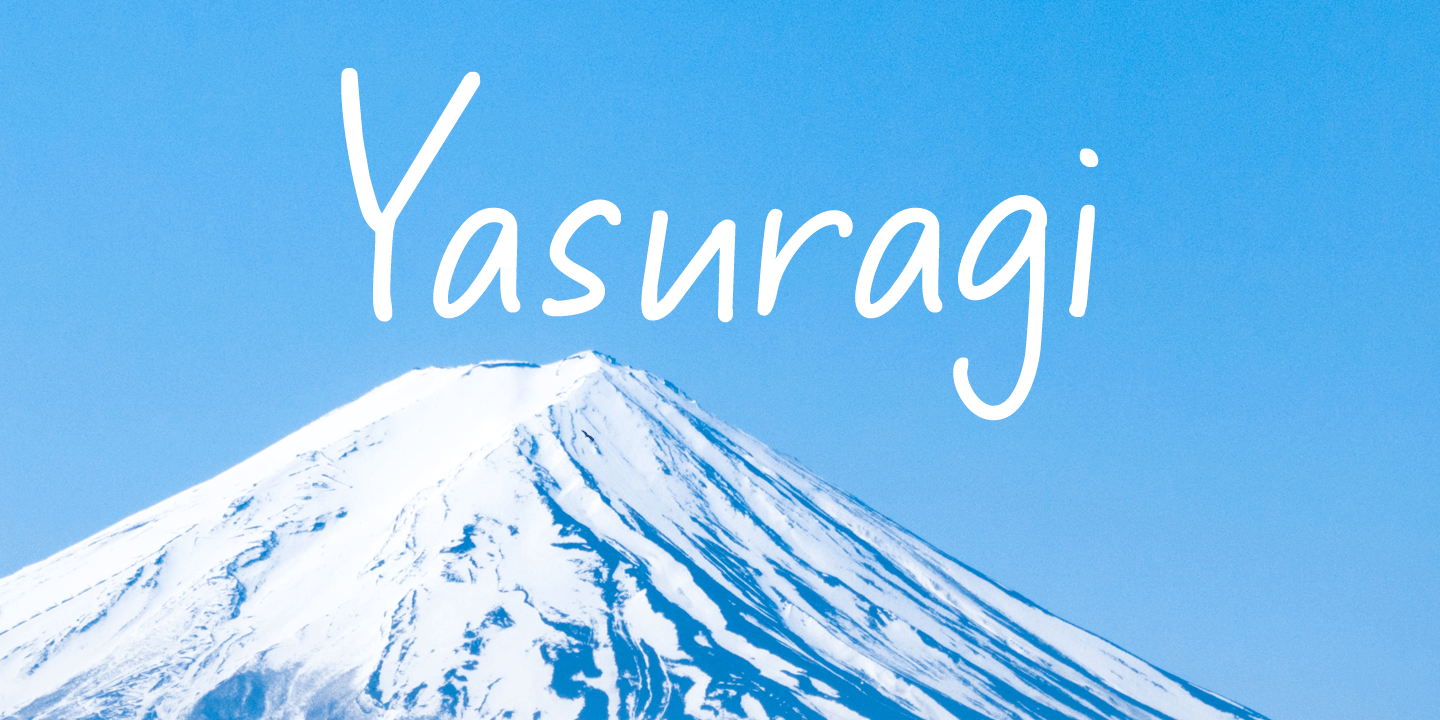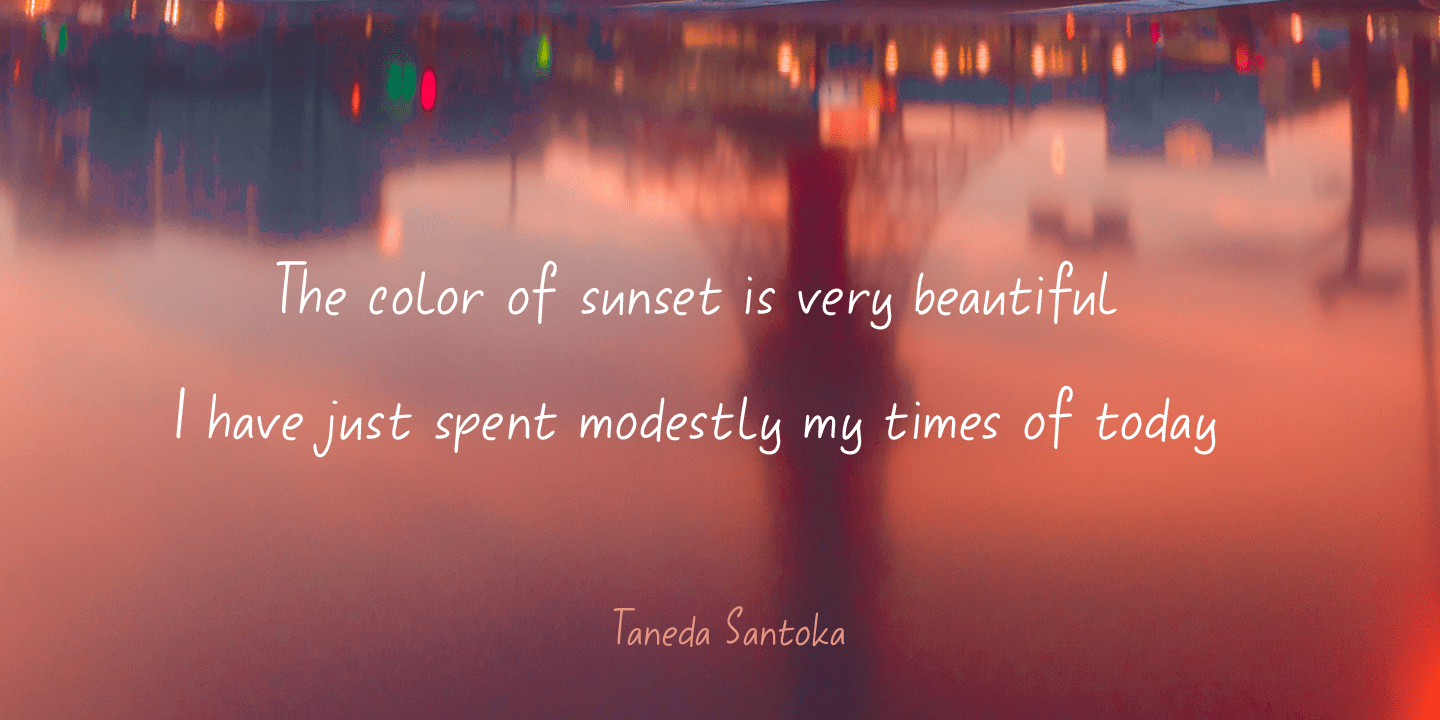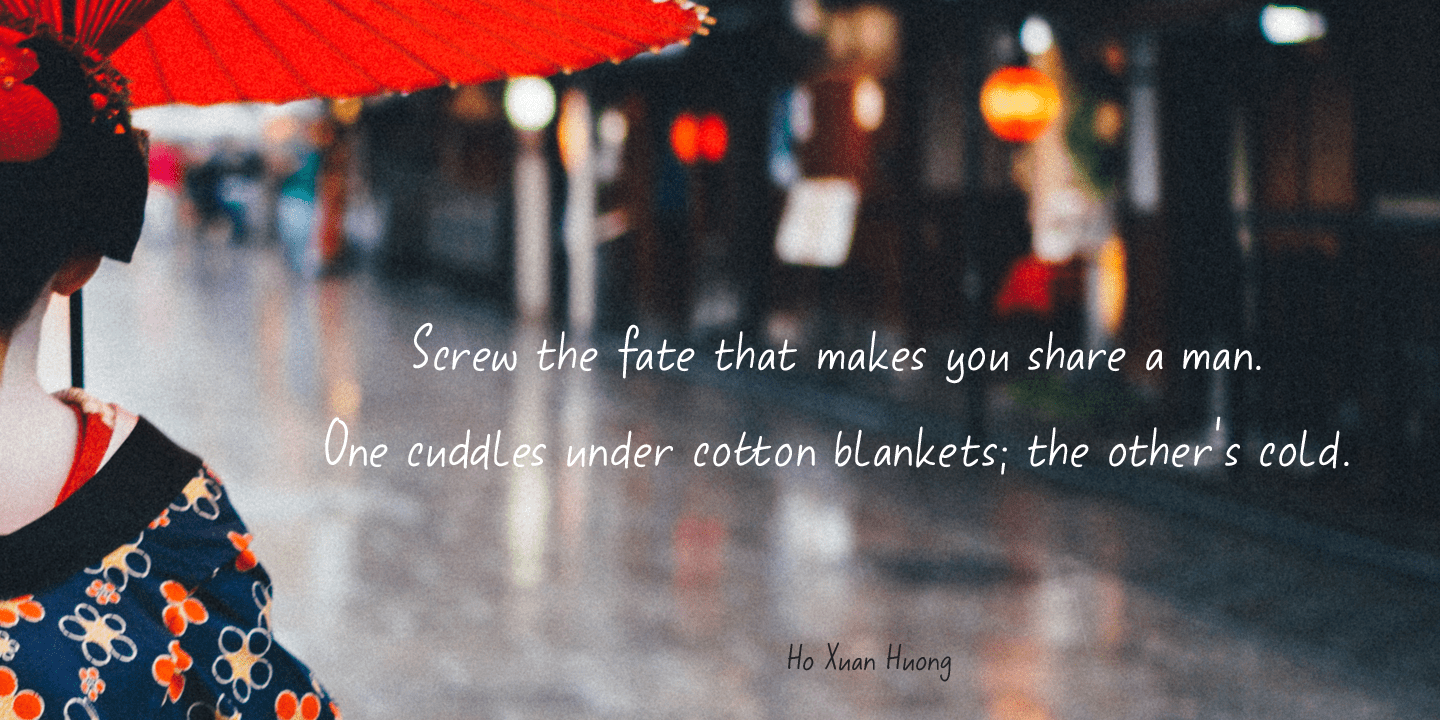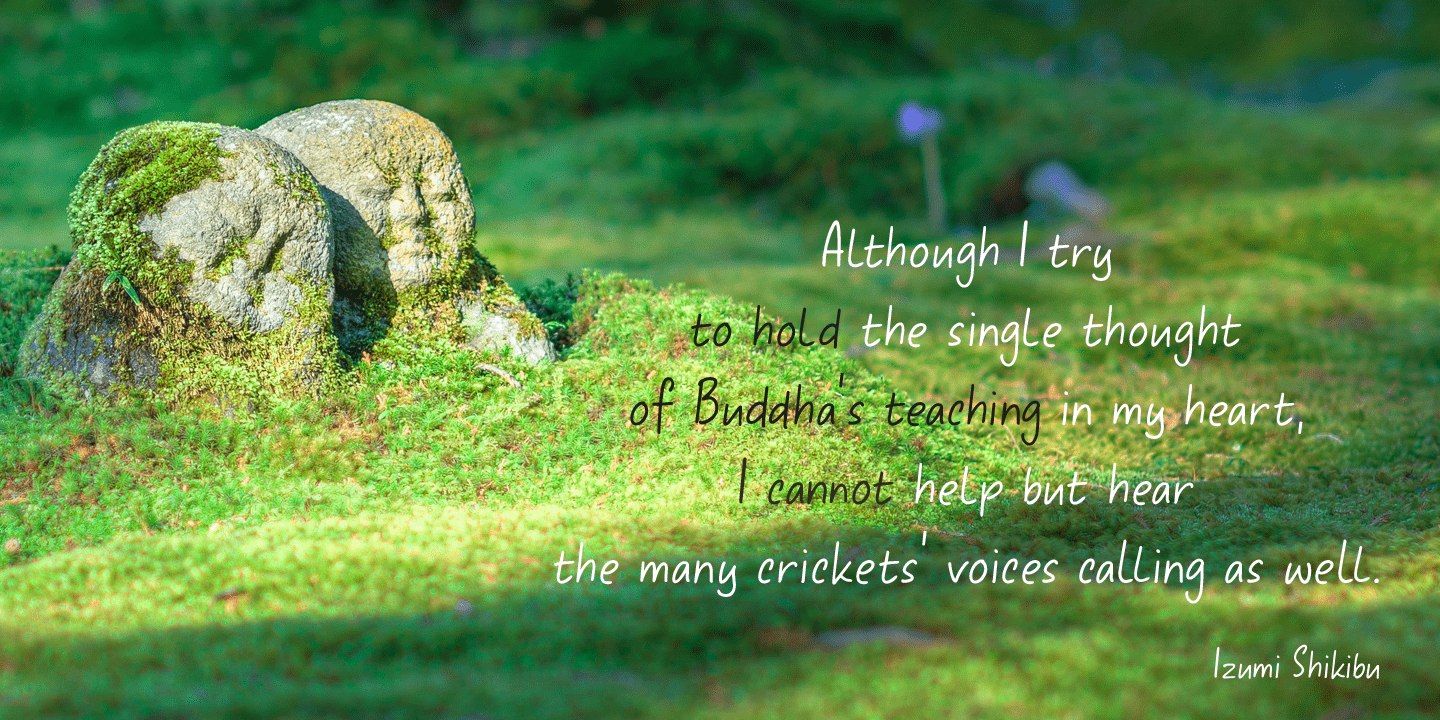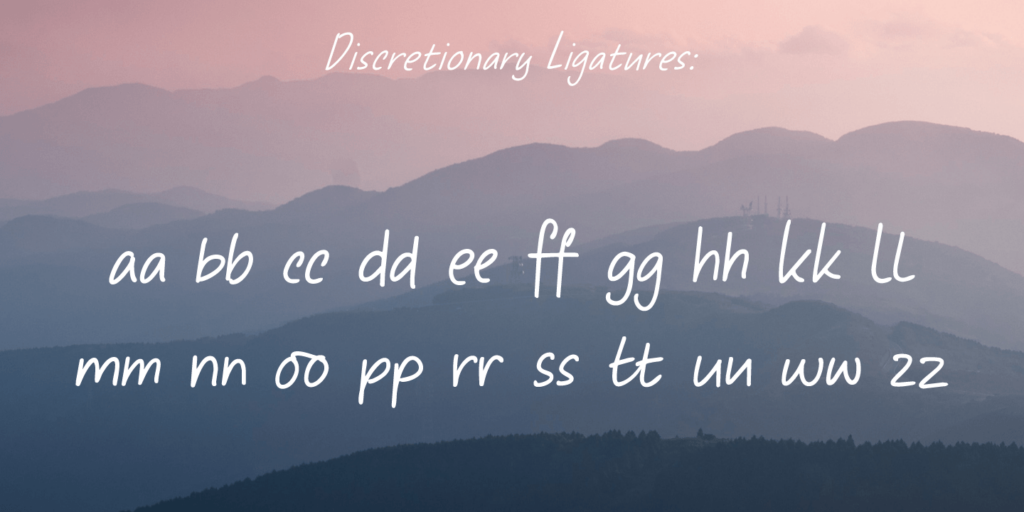
Yasuragi
About Yasuragi
Yasuragi means ?Peace of Mind? or ?Tranquility? in Japanese. It is something I do not have a lot of since the corona lockdown\’the 😉 Yasuragi is a handmade script font. It is quite neat, quite elegant and quite useful (in a tranquil, peace-of-mind kinda…